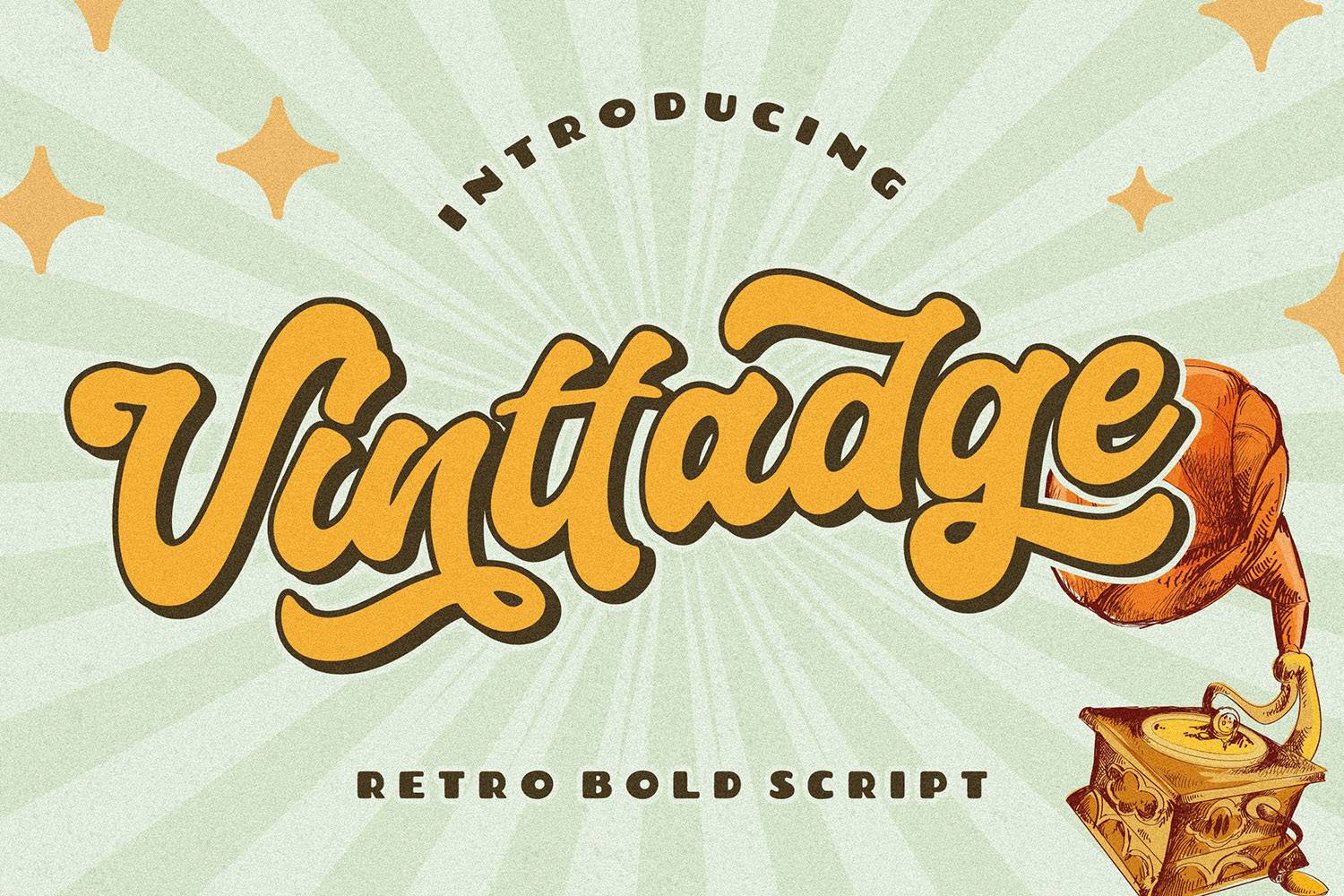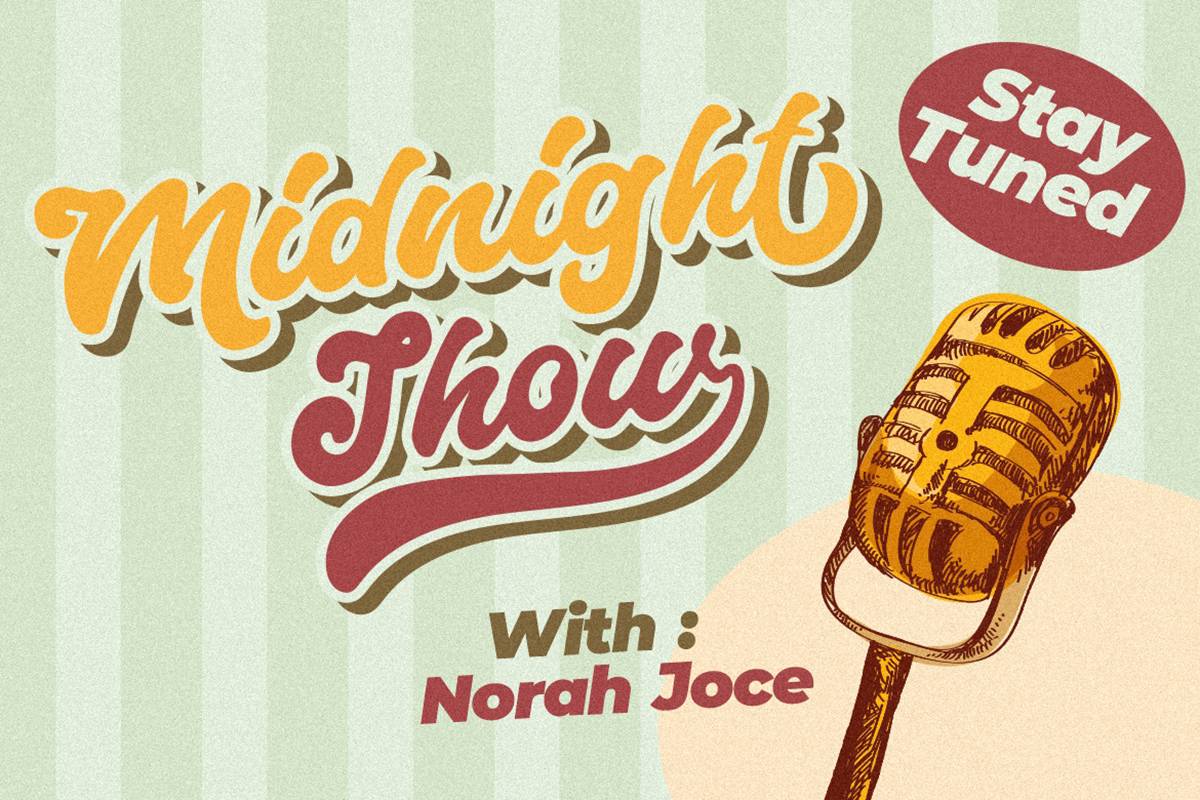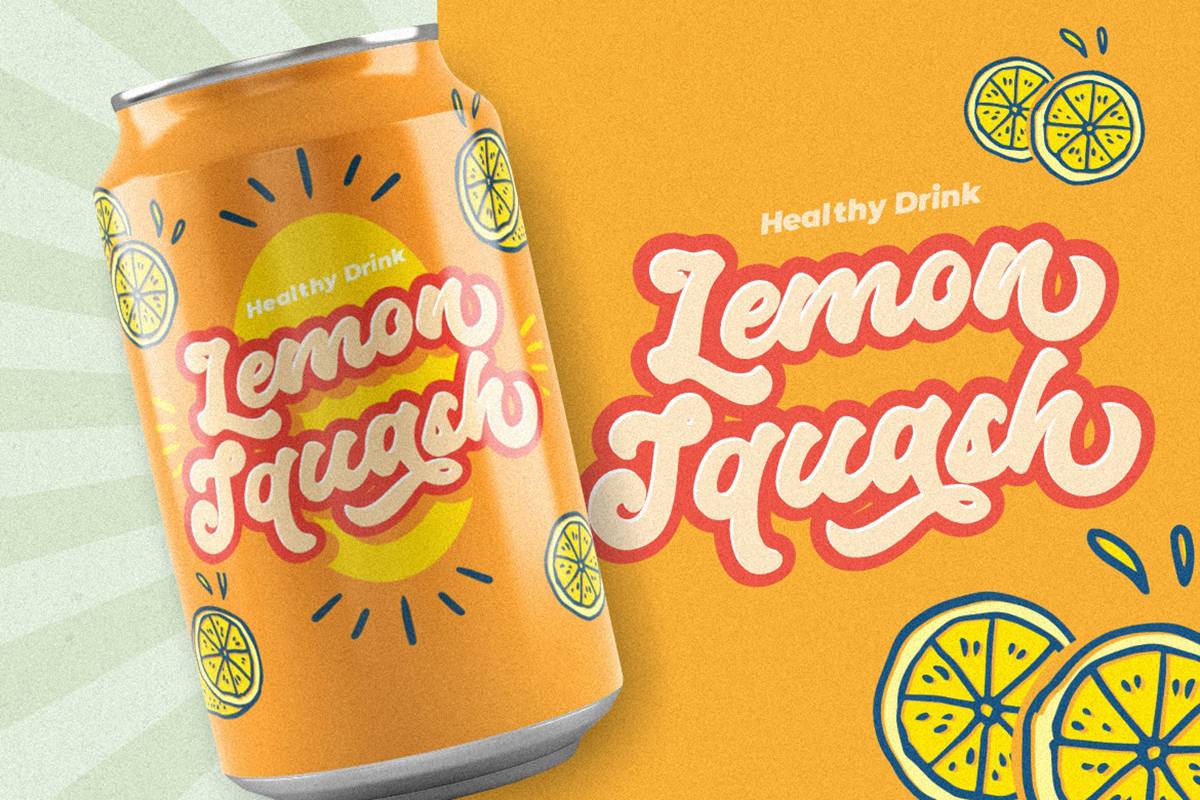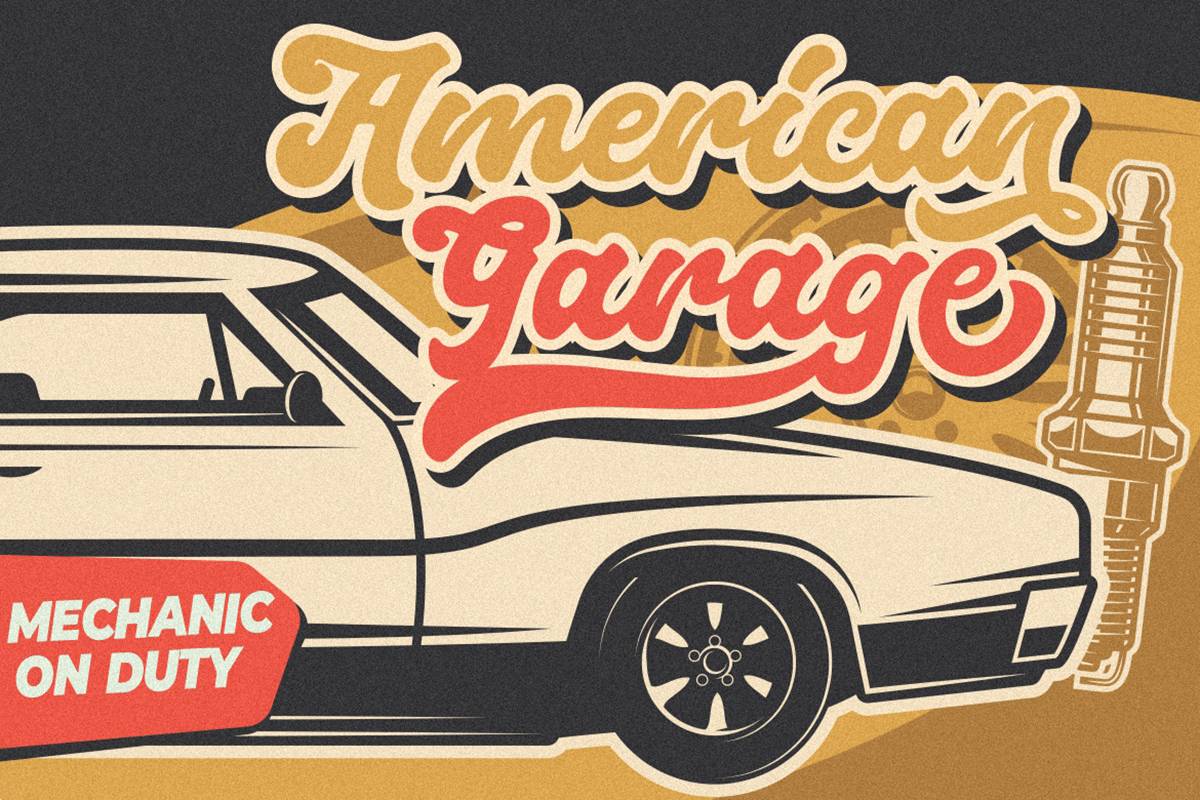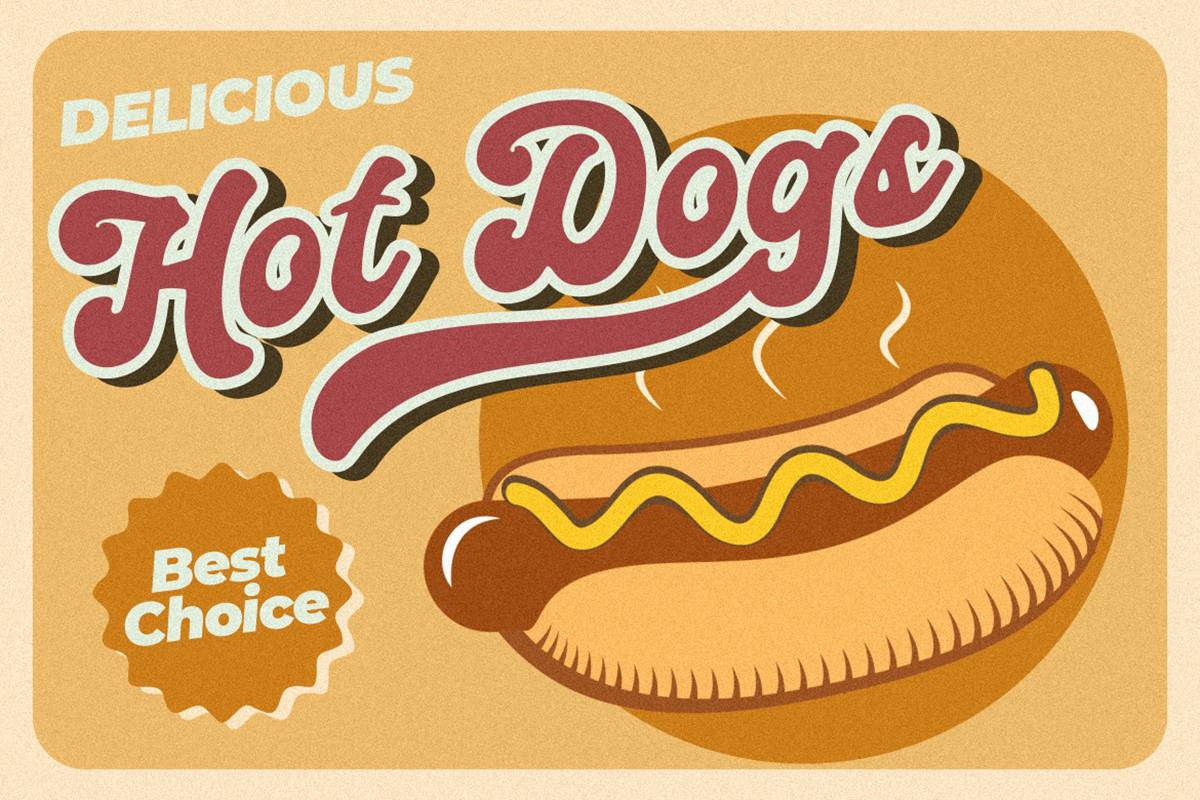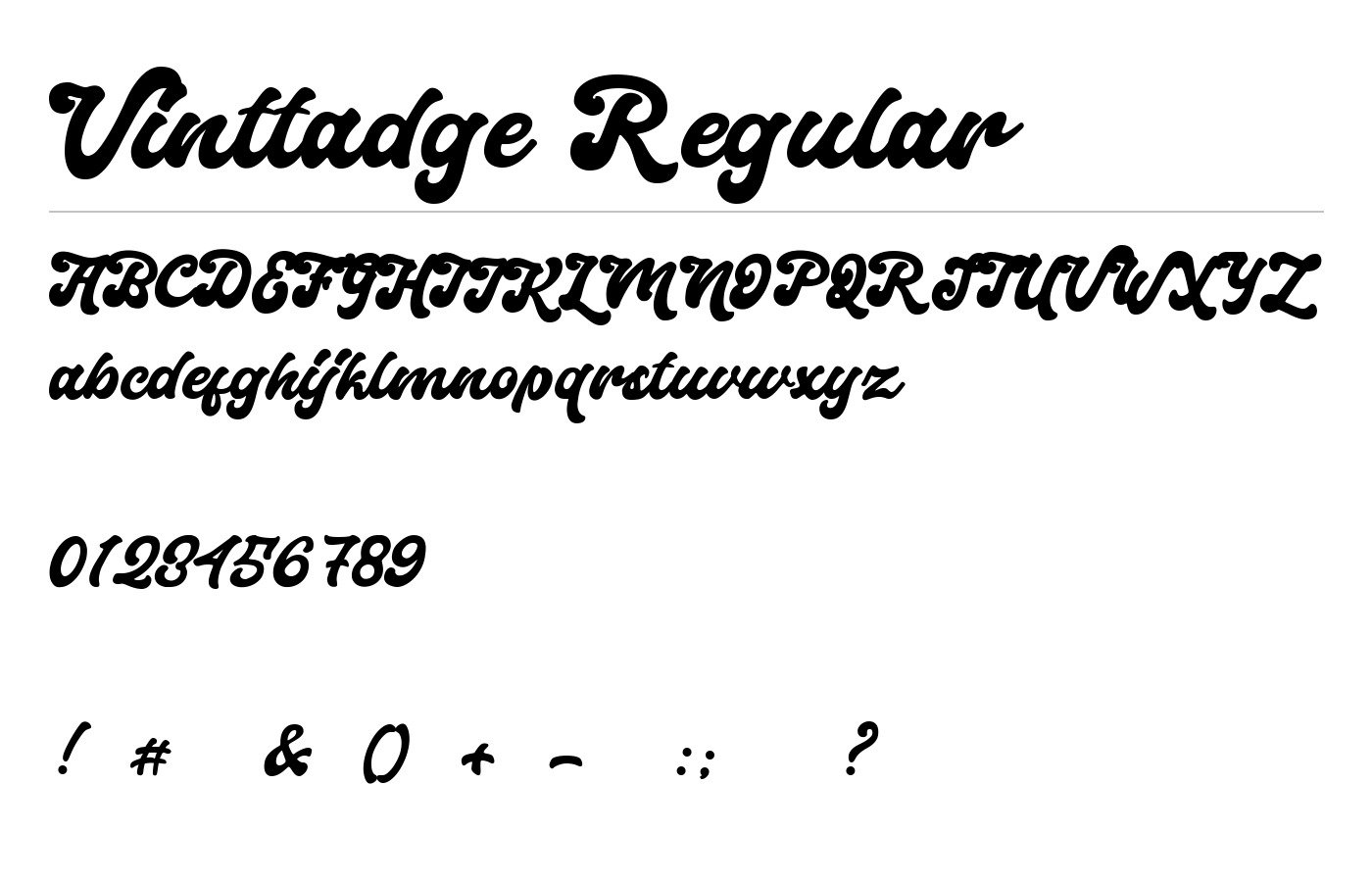
Vinttadge is a bold, script-style font with a classic vintage vibe, featuring smooth, rounded strokes and a lively, handwritten feel. Its thick weight and playful letterforms make it ideal for eye-catching logos, packaging, and headlines that want to evoke warmth and nostalgia. This font works well in designs aiming for a friendly, retro-inspired style with personality and charm.
Vinttadge Font
About Vinttadge Font